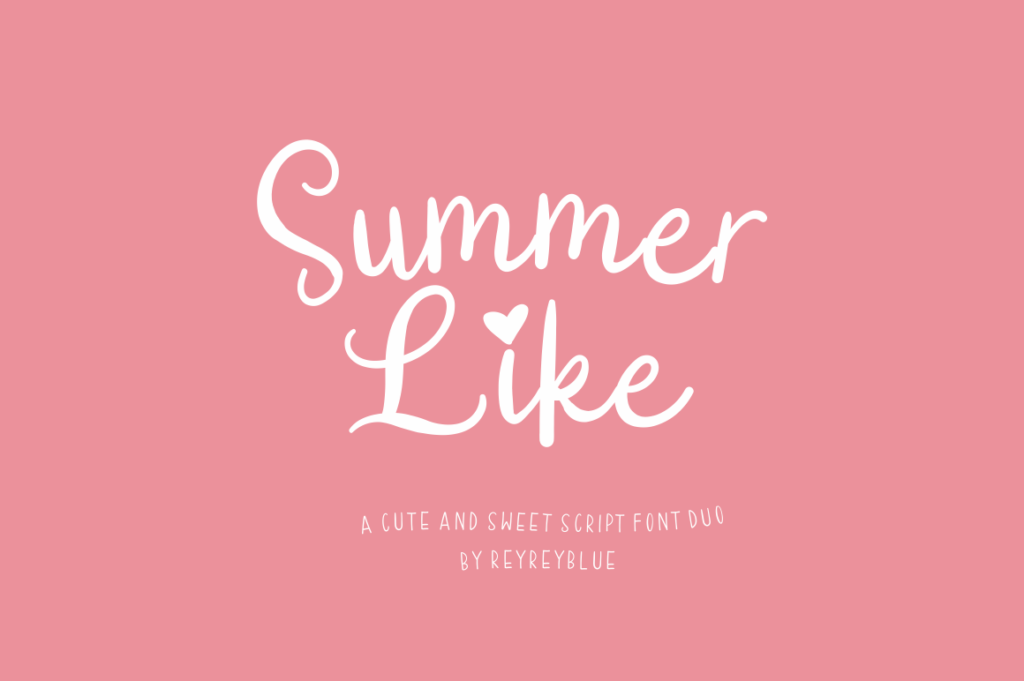
Introduce Summer Like by Risca Anita. A cute and sweet script font duo. It includes full set of uppercase, lowercase, numerals, punctuation, symbols and support multilingual.
A perfect font for branding projects, logo, wedding designs, social media posts, advertisements, product packaging, product designs, label, photography, watermark, invitation, stationery and any projects that need handwriting taste.
If an establishment is offering summer discounts, you can create colorful and unique posters and ads with this font, in addition to invitations, stationery projects, resort and shops websites, wedding seating arrangements, fashion and cosmetics branding and packaging designs, and typography art.